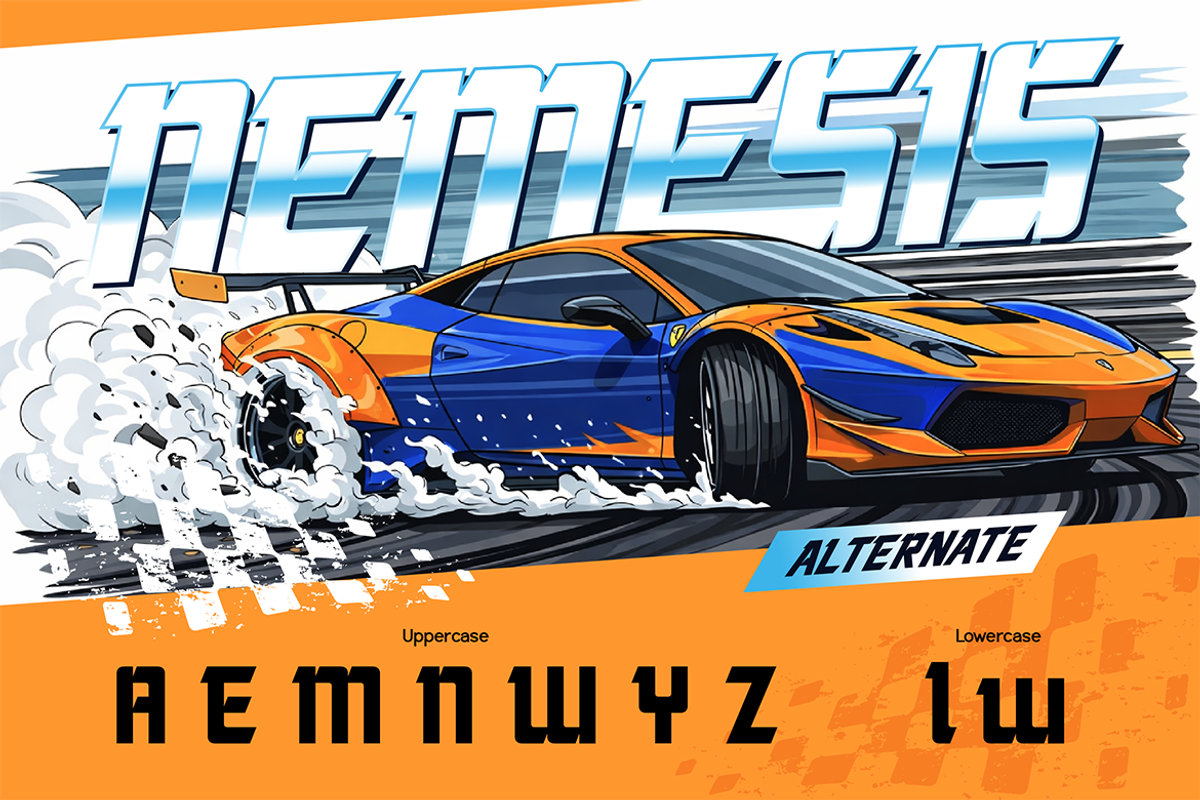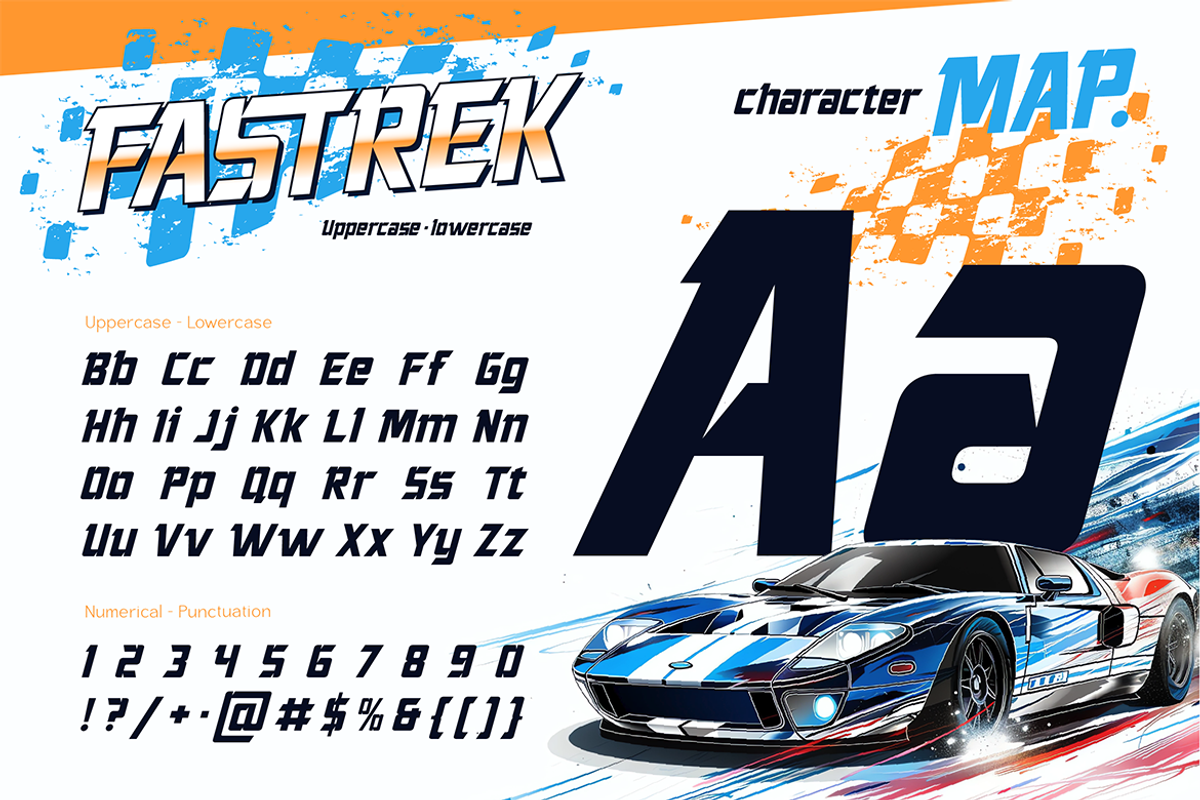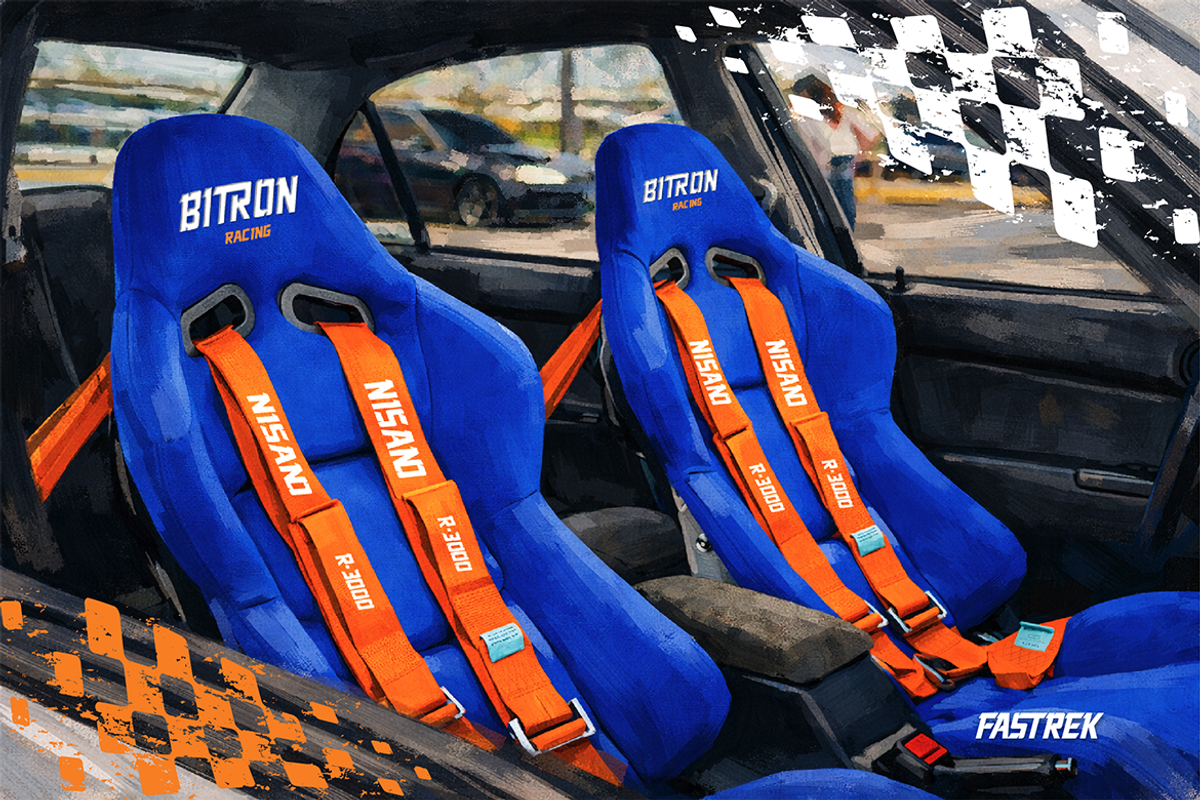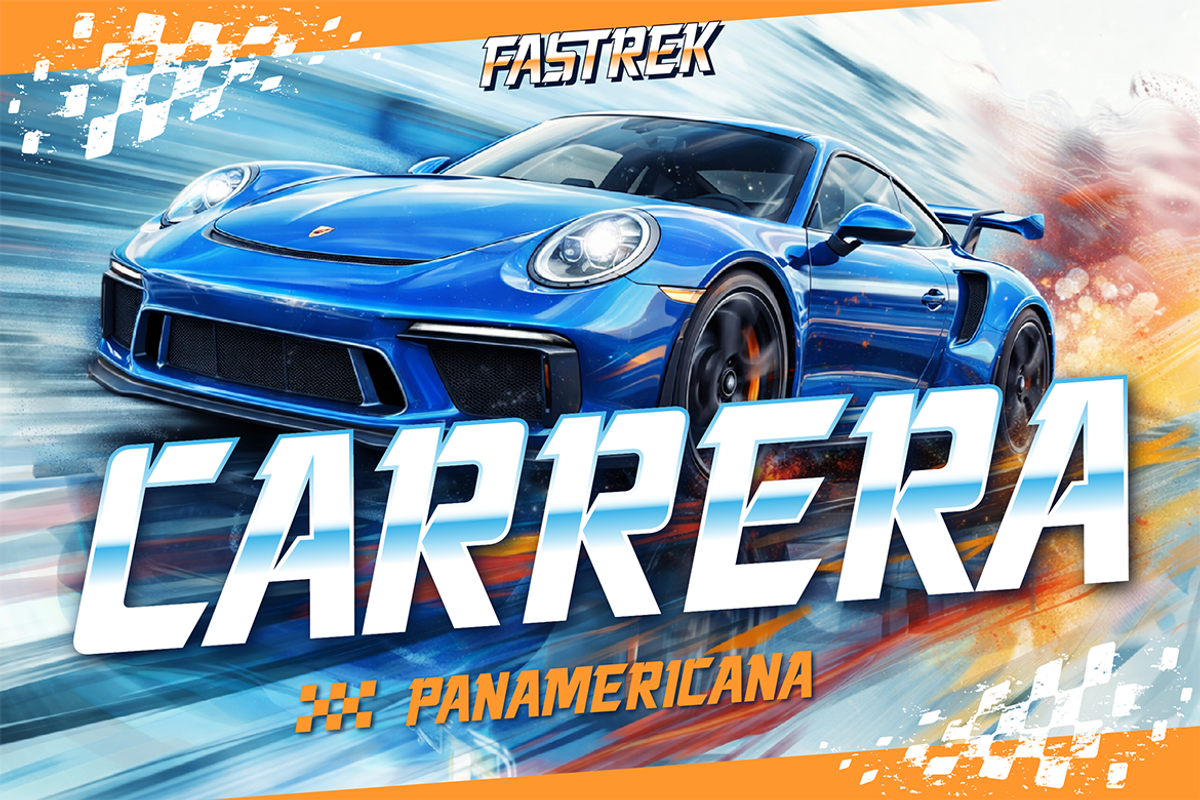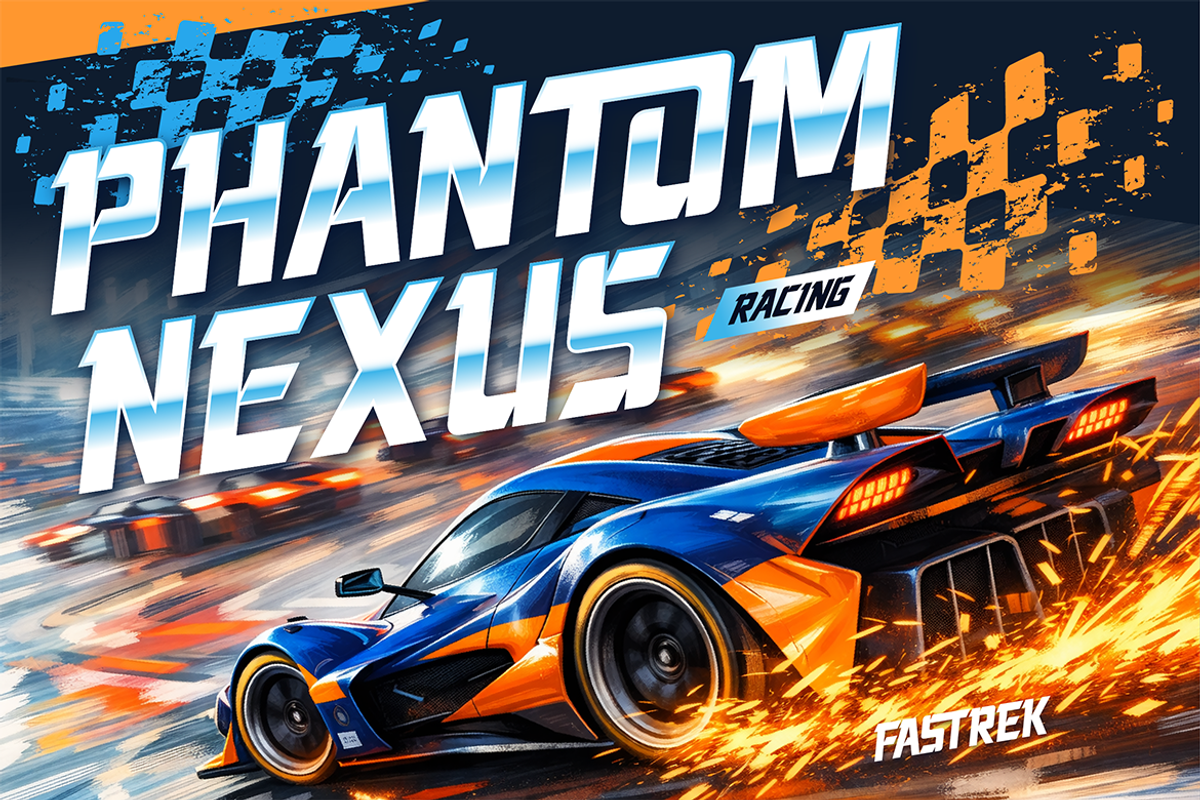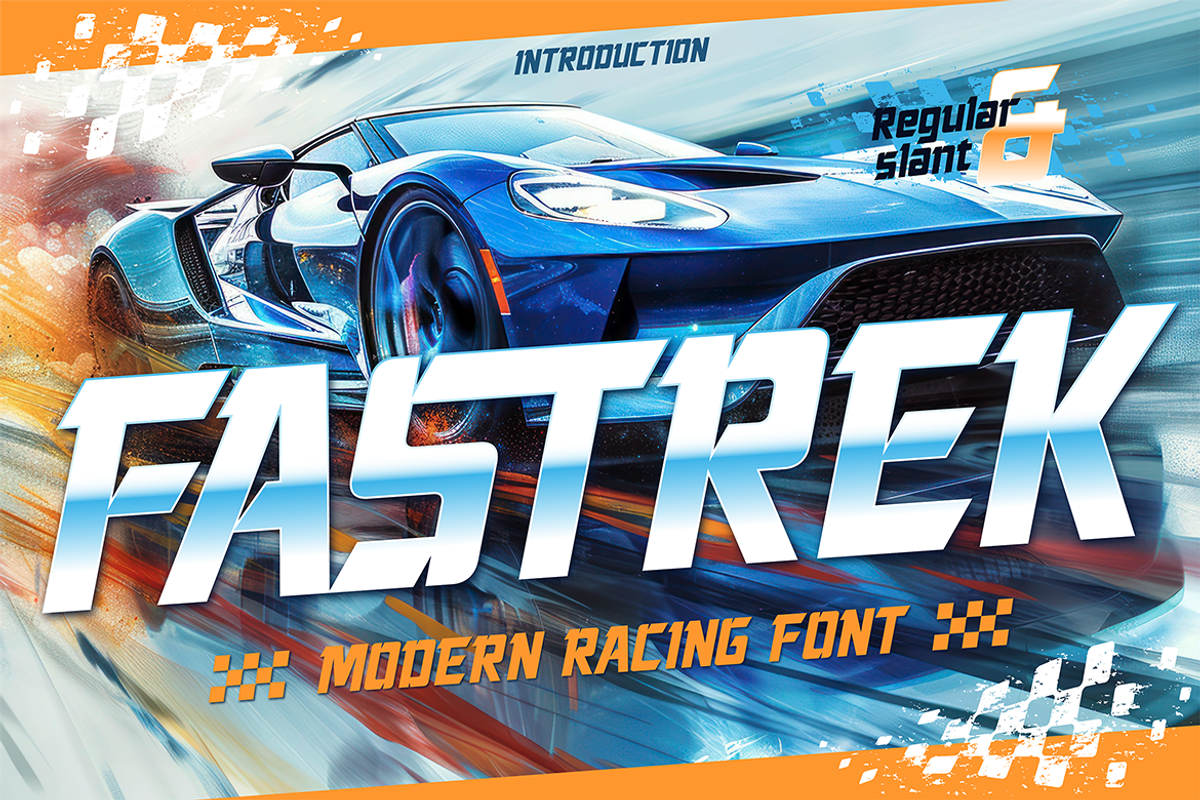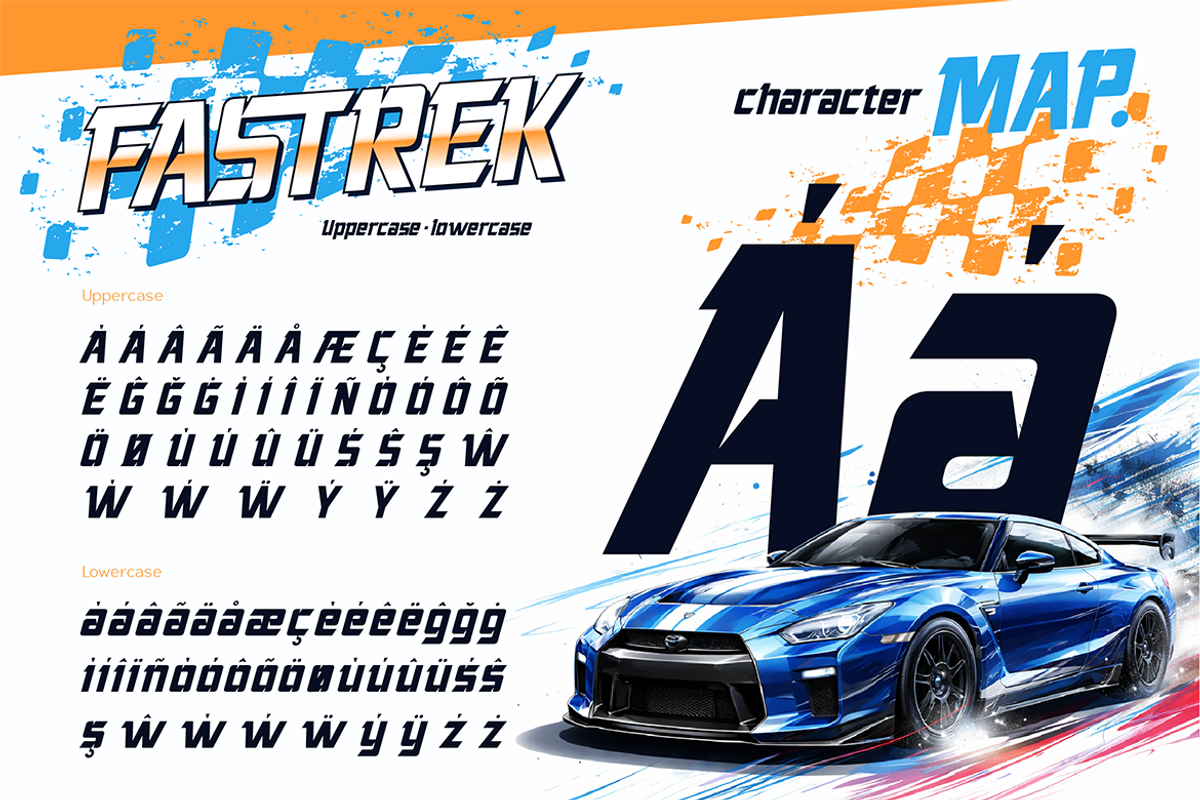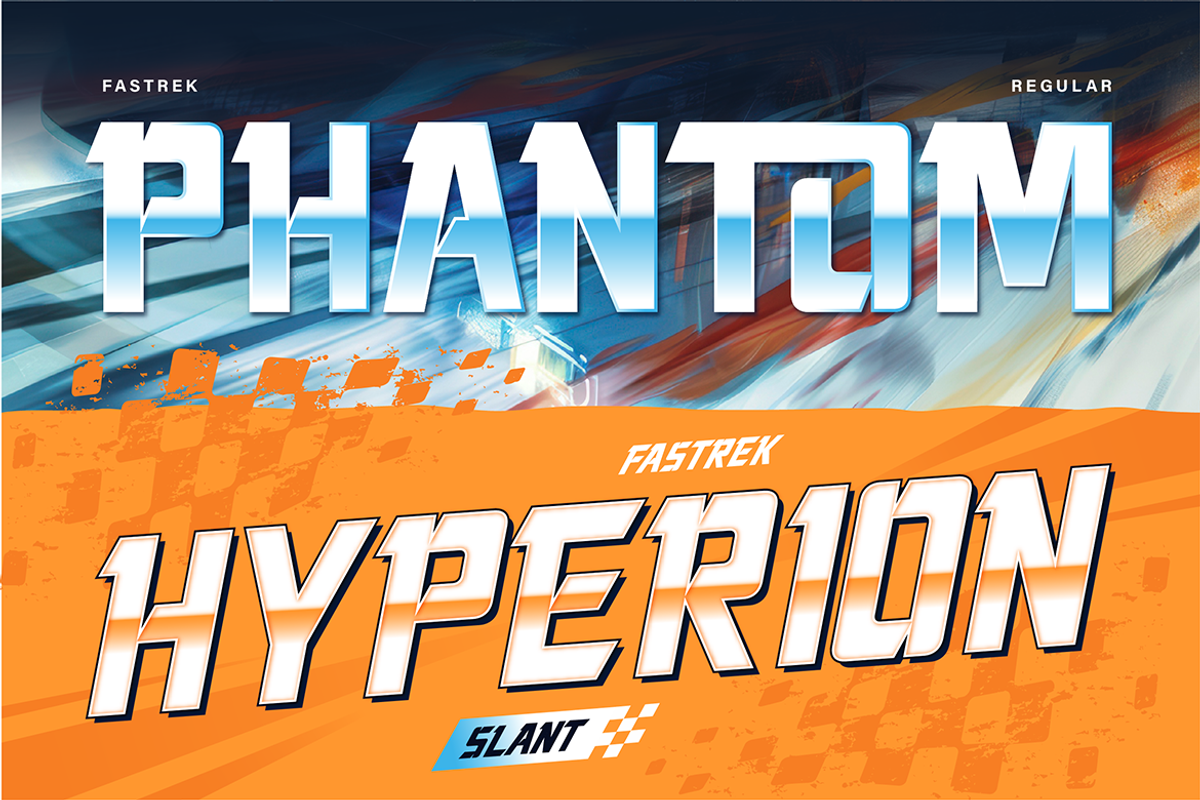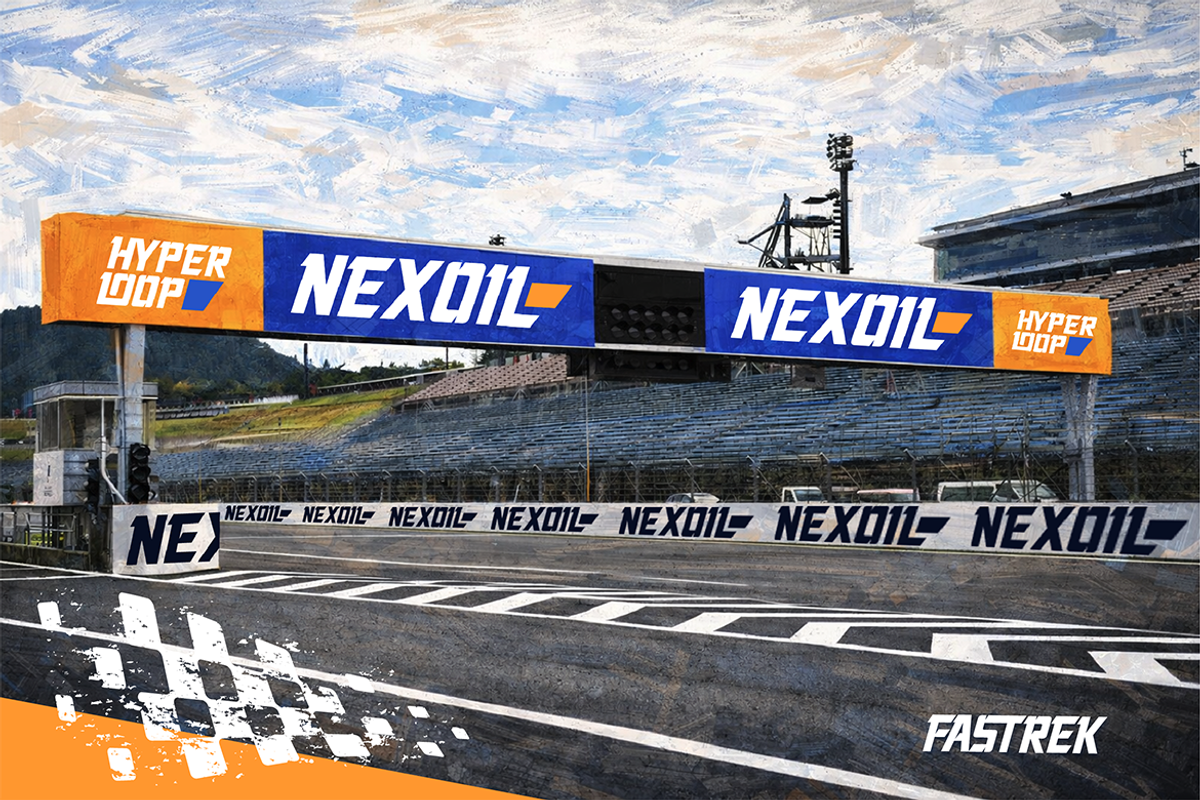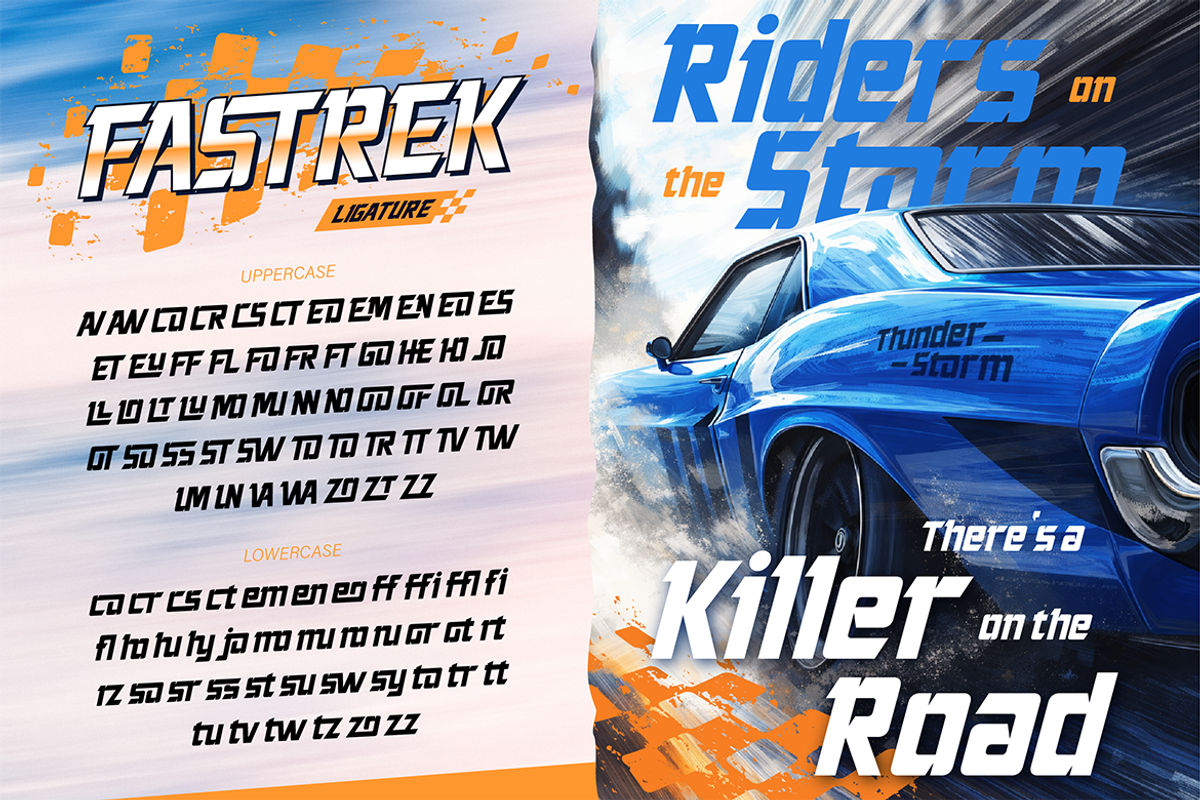
Fastrek
FASTREK is a modern racing display font built to deliver speed, power, and a bold competitive look. Inspired by motorsport culture, high-performance cars, and futuristic racing visuals, this font features sharp angles, strong geometry, and dynamic letterforms that instantly create a sense of motion. Designed for impact, FASTREK comes with Regular and Slant styles, allowing you to switch between a clean, solid look and a more aggressive, fast-paced appearance. The font is highly legible while maintaining an energetic and sporty character, making it perfect for bold headlines and statement typography. FASTREK is ideal for projects that need a strong racing or automotive vibe. Whether you’re working on branding, posters, merchandise, or digital content, this font helps your design stand out with speed and confidence.
- A - Z set (Uppercase & Lowercase All Caps)